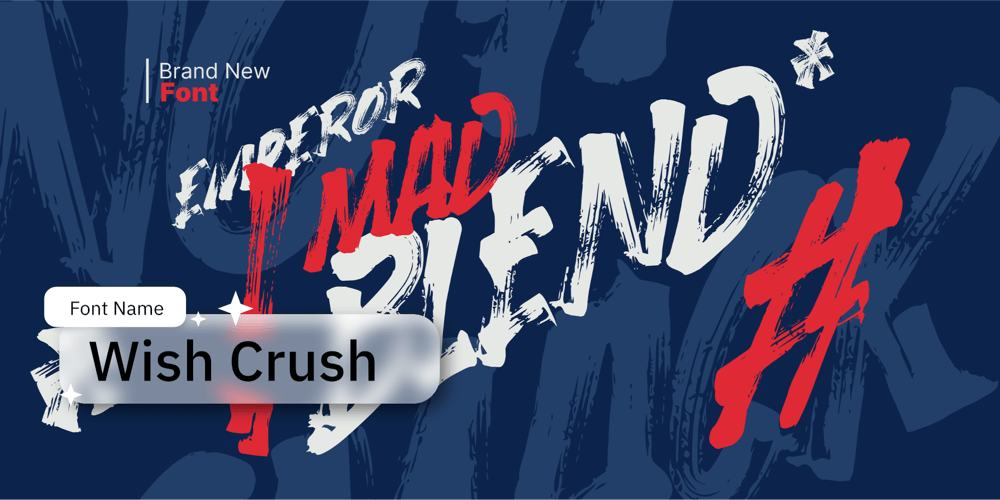
Wish Crush Font Family was designed by Wahyu Eka Prasetya, Afiat Sukmaraga and published by Hati. Wish Crush contains 1 styles and family package options. Envision a font that embodies the essence of urban grit and speed, with rugged strokes that convey a rebellious attitude and a sense of relentless forward motion.